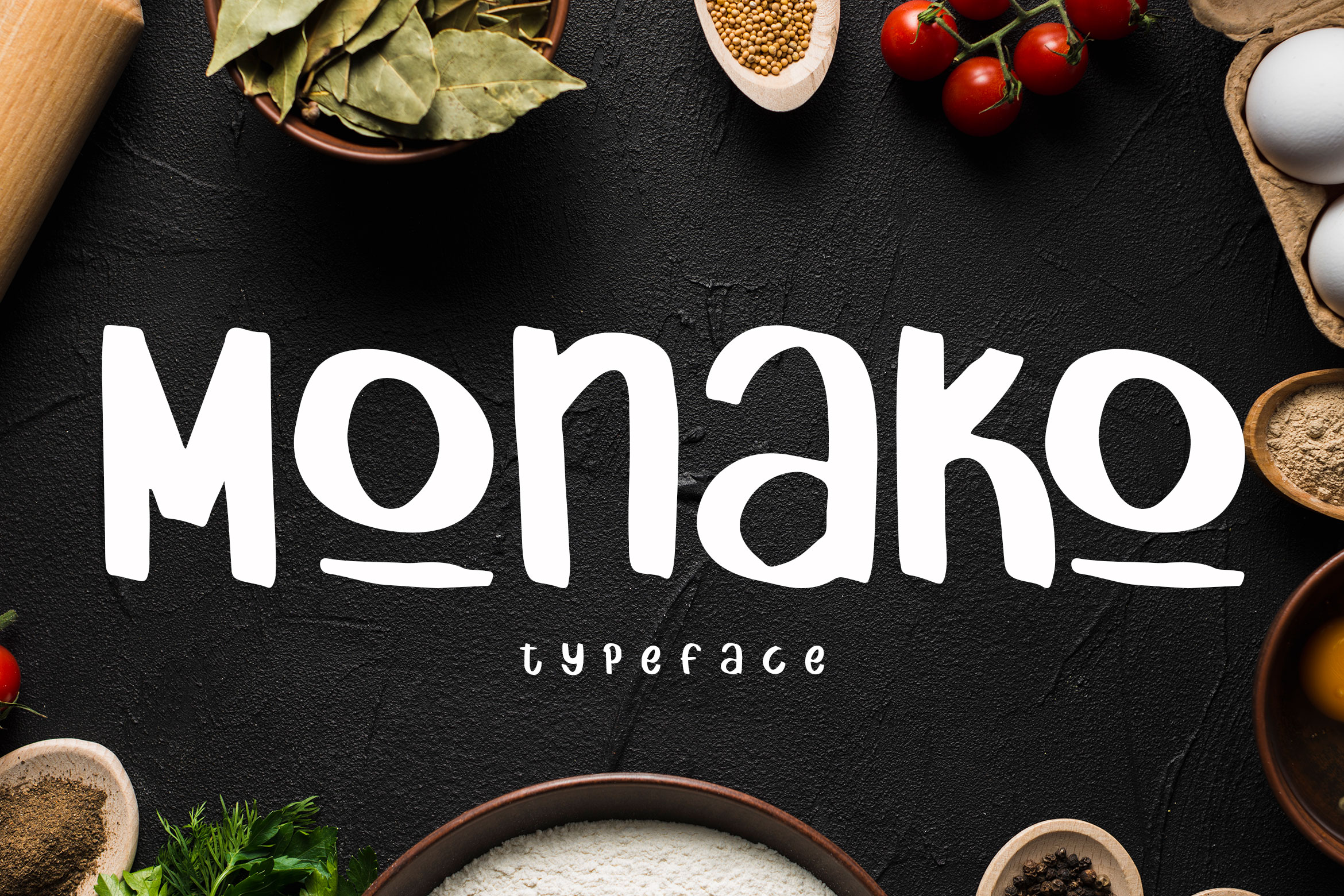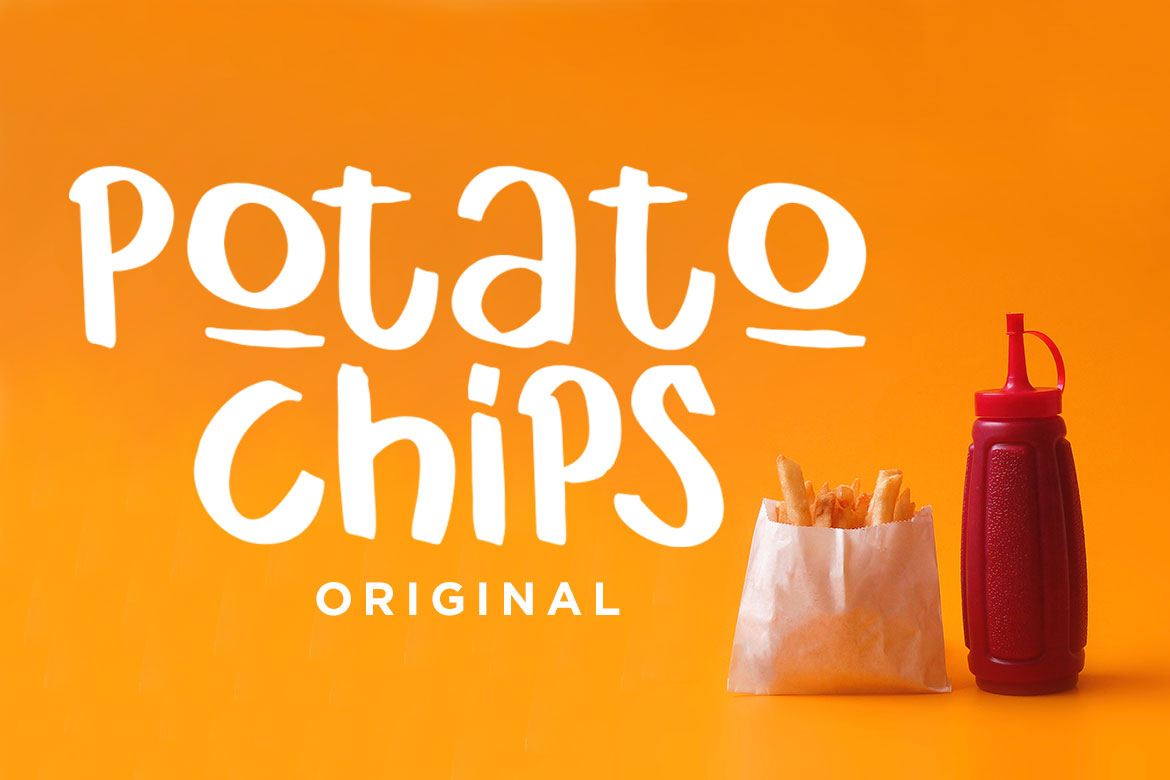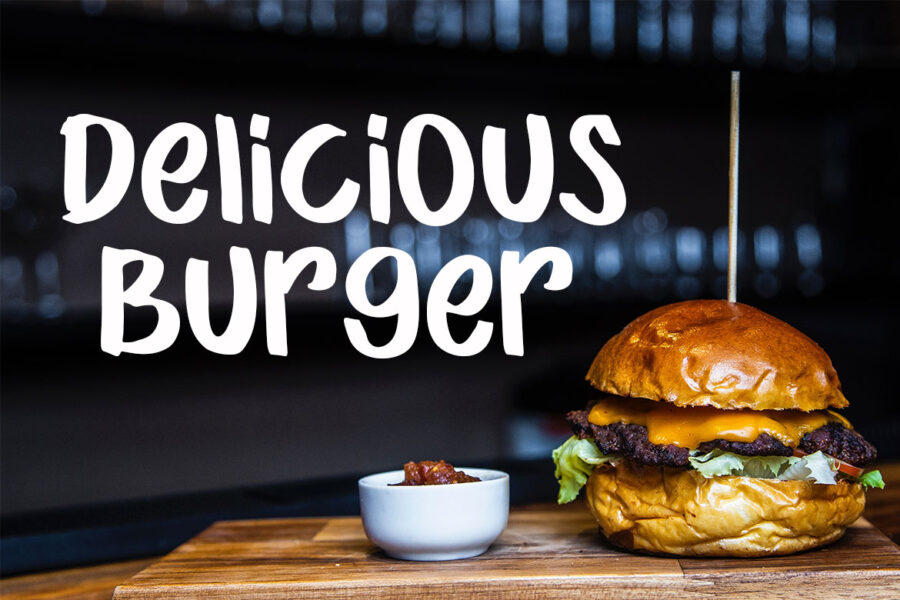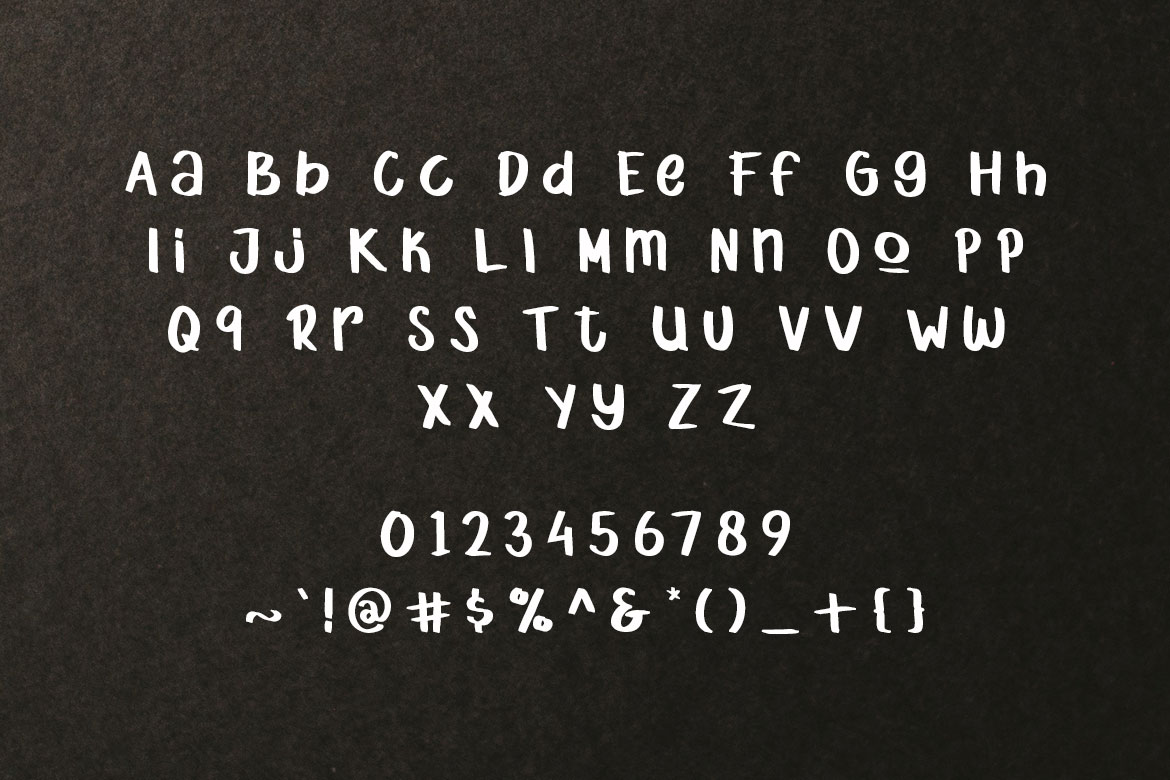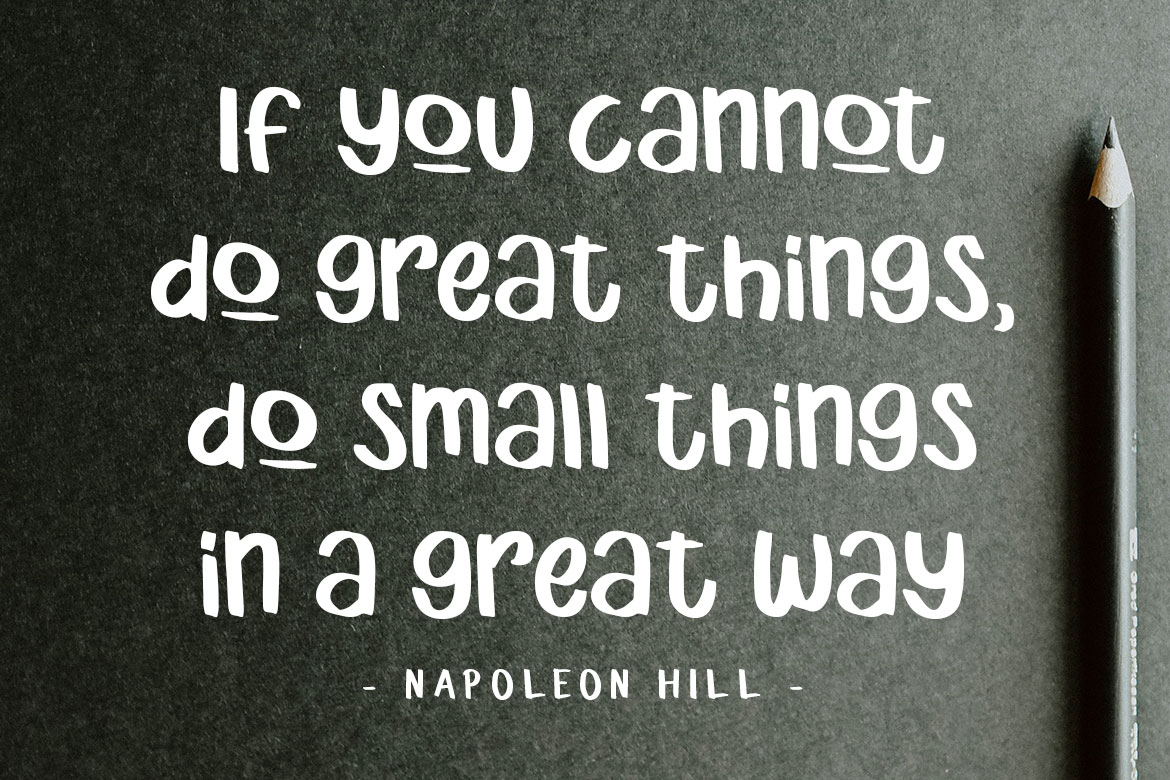
Monako is a quirky and bold display typeface that radiates fun and friendliness through its hand-crafted style. With playful letterforms and organic shapes, it captures the lively energy of handwritten signage while maintaining excellent readability. The charming underscored vowels add a unique flair that makes Monako stand out in food branding, packaging, children’s products, and casual advertising.
Equipped with uppercase and lowercase letters, numbers, punctuation, and special characters, Monako is highly versatile for a range of creative uses. Whether you’re crafting catchy headlines, cafe menus, food labels, or inspiring quotes, Monako adds a personal and joyful touch that invites attention and builds visual warmth.
Monako